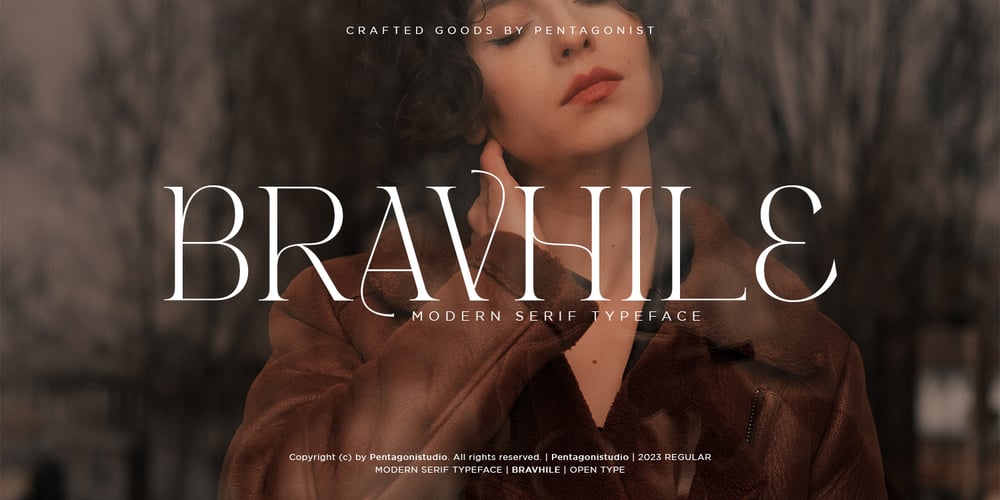
Bravhile Font Family was designed by Burhan Adiatma and published by pentagonistudio. Bravhile contains 1 styles and family package options. Bravhile Is A Modern Serif Typeface Inspired By Stylish and Elegant Style.SOFTWARE REQUIREMENTS :Fonts and alternate : No special software required they may be used in any basic program /website apps that allows standard fonts That’s it folks! You can go ahead and get cracking :)Follow My Shop For Upcoming Updates Including Additional Glyphs And Language Support. And Please Message Me If You Want Your Language Included or If There Are Any Features or Glyph Requests, Feel Free to Send me A Message. Have a Good Day !